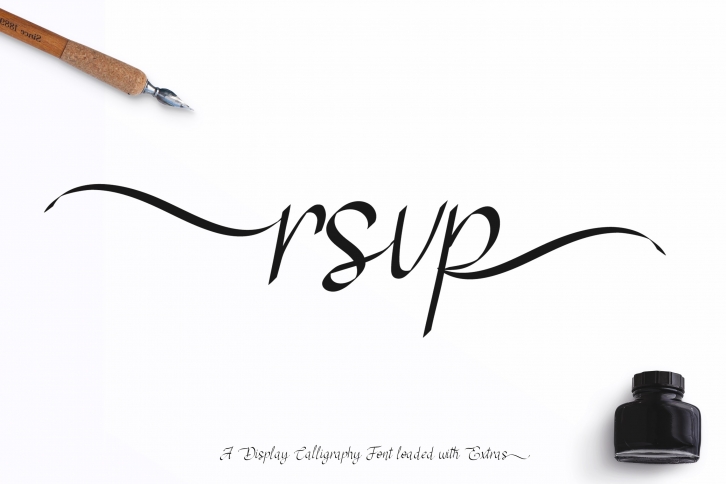
RSVP a modern calligraphy display with swatches is a great font that was designed by Daily Miracle Digitals LLC. Imagine the amount of combinations you can create using this font! The archive is 10.81 MB and it was released on January 7, 2019. RSVP a modern calligraphy display with swatches looks beautiful on wedding invitations, greeting cards, logos, posters, labels, t-shirt designs, logos, business cards and is perfect for use in ink or watercolor works, fashion, magazines, packaging and food menus, children's books and more!